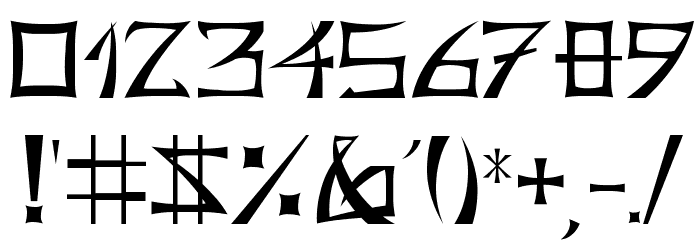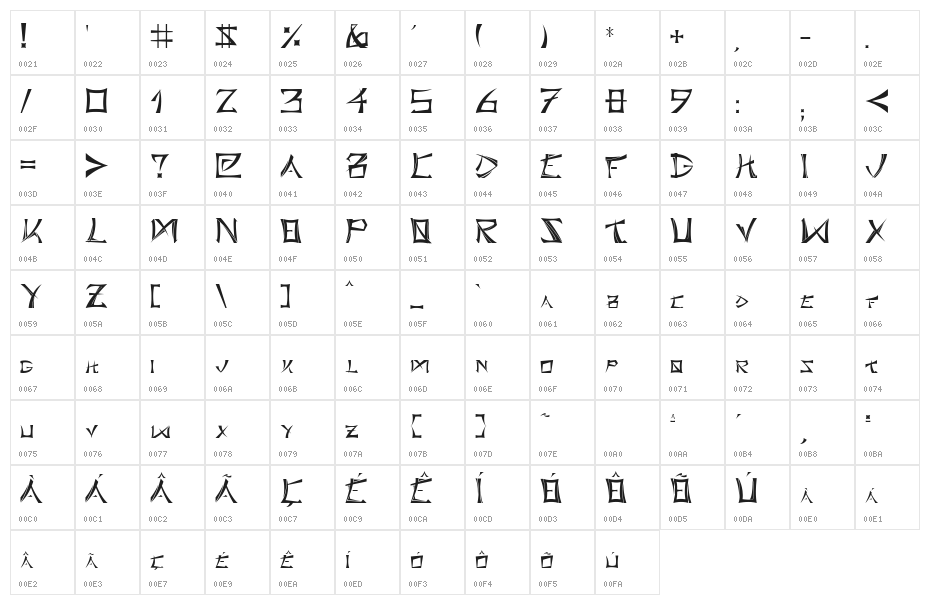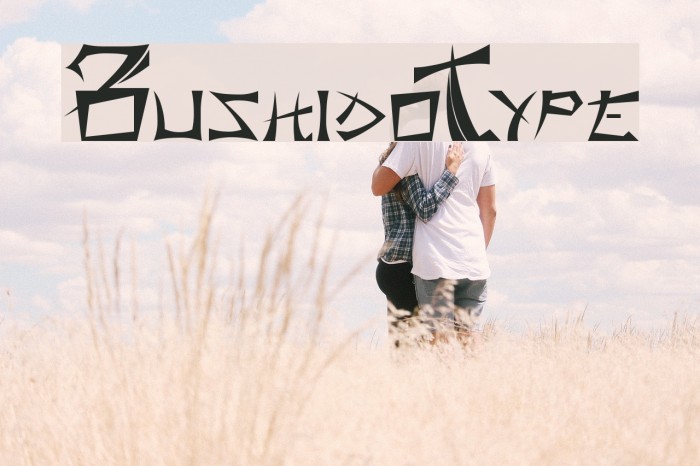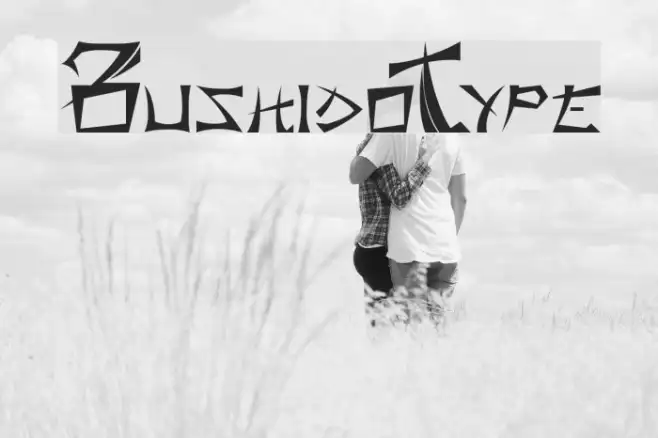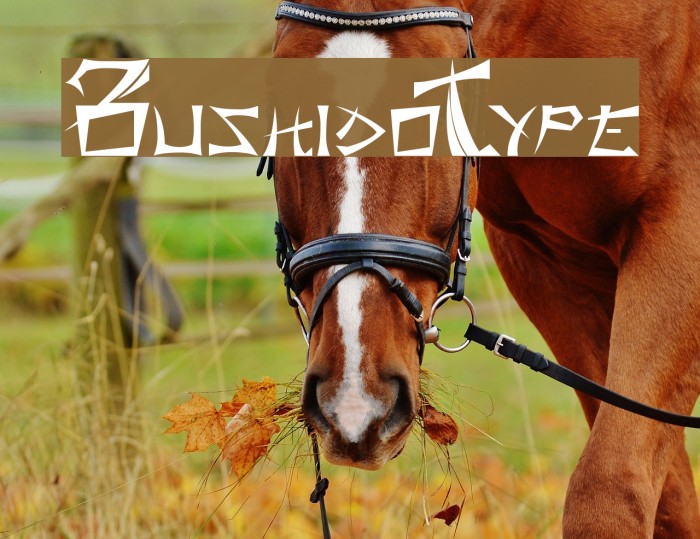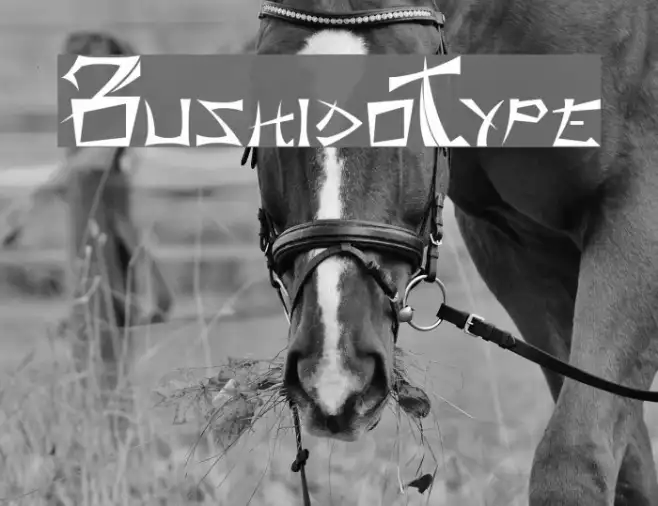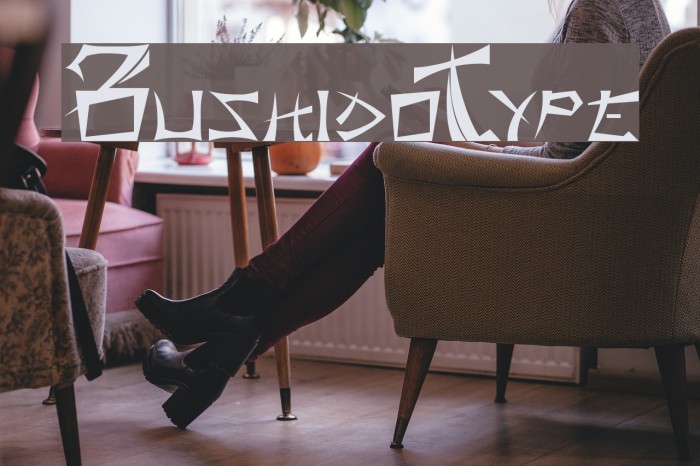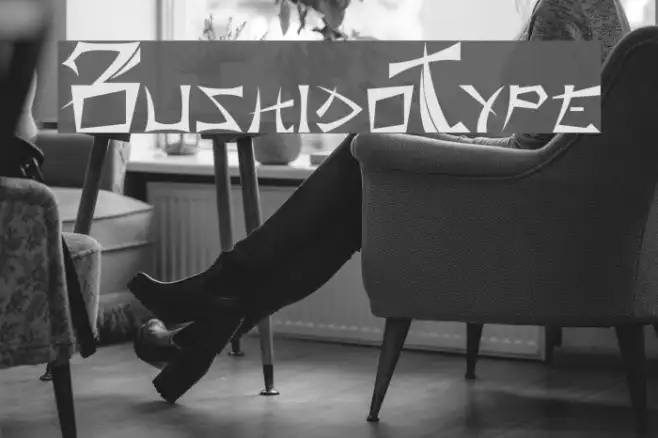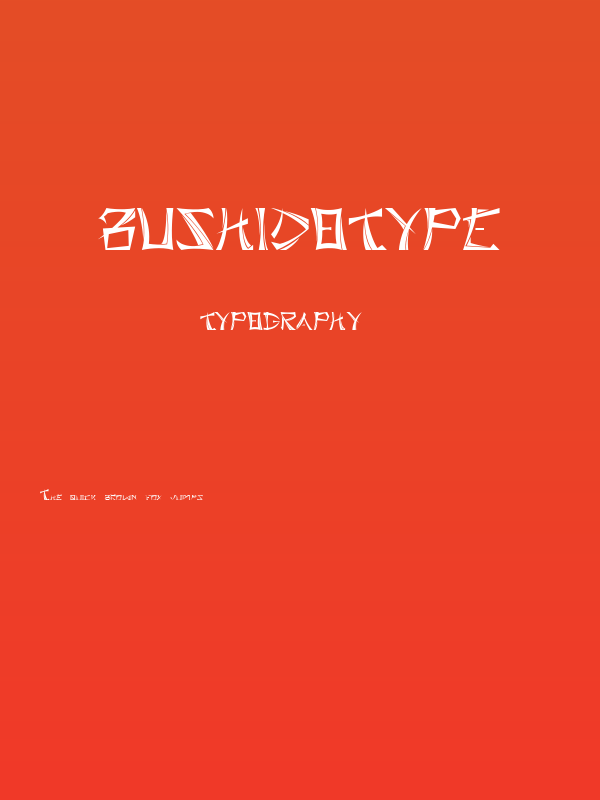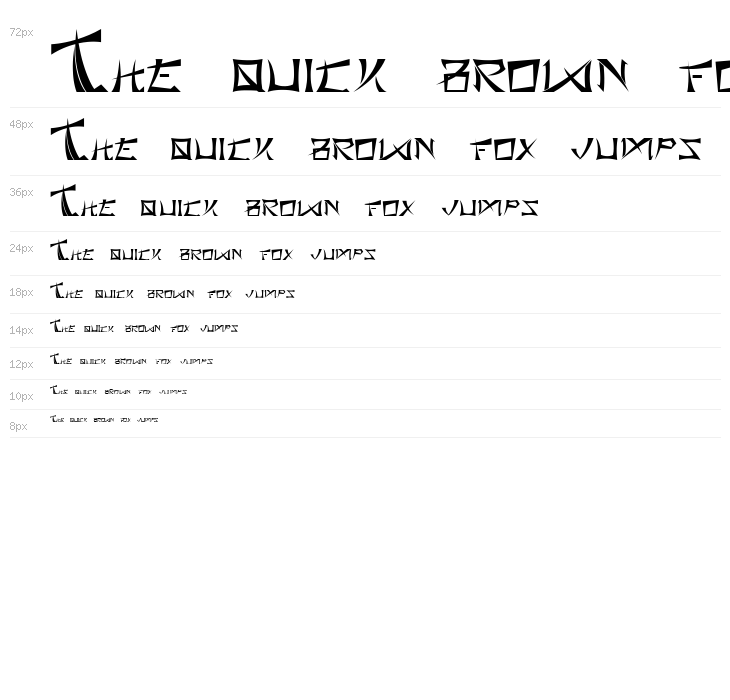
BushidoType Font
BushidoType Description
This font features a bold and angular design, reminiscent of sharp blades and dynamic movement. The characters are stylized with pointed edges and a sense of motion, creating a striking visual impact. The uppercase and lowercase letters maintain a consistent theme, with each character exhibiting unique angles and cuts that suggest a sense of energy and aggression. The numerals and special characters follow the same aesthetic, ensuring a cohesive look across all elements. This font is ideal for projects that require a bold and edgy appearance, capturing attention with its distinctive style.
| Proposed Projects | Perfect for martial arts event posters, video game titles, or edgy branding projects. |